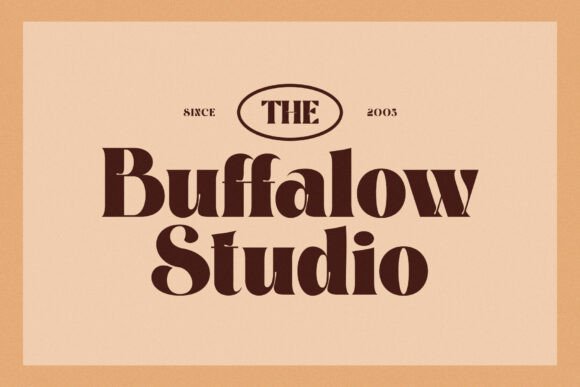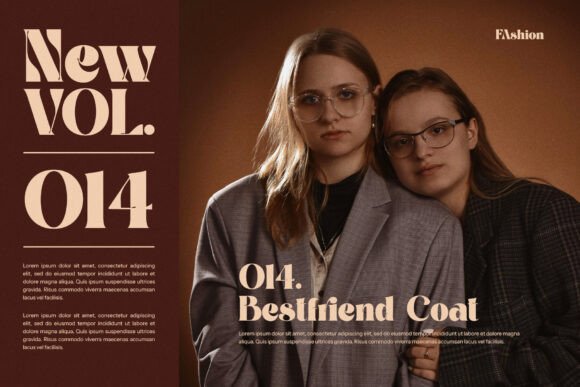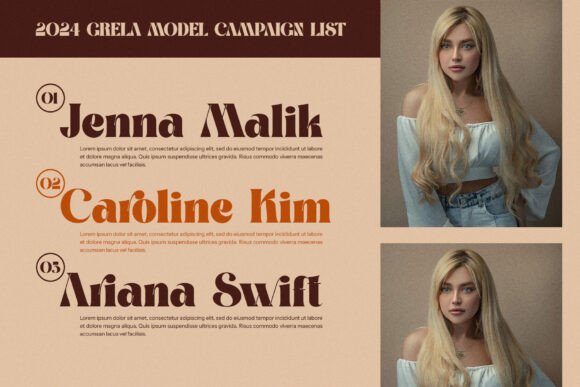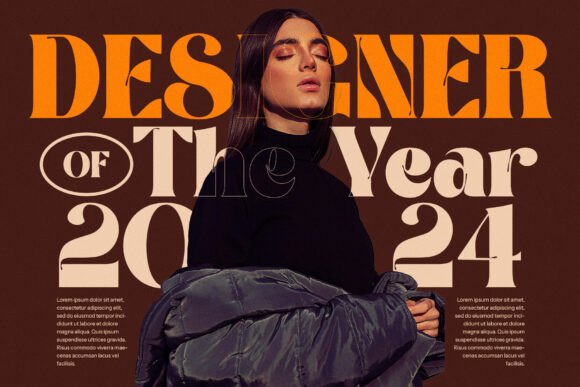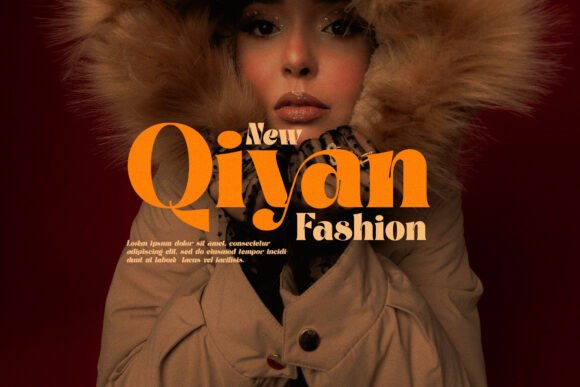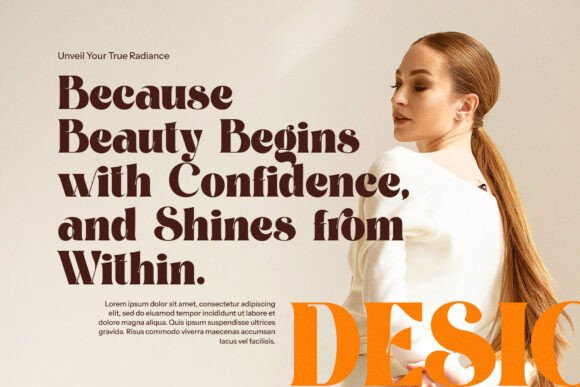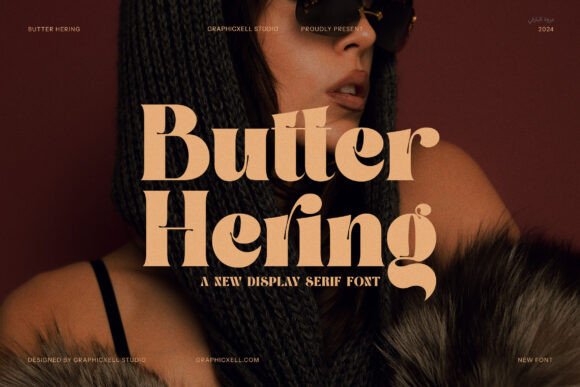
Introducing Butter Hering: A Timeless Vintage-Style Serif Font
Are you a designer or crafter looking for a font that exudes classic elegance and sophistication? Look no further than Butter Hering, a beautiful vintage-style serif font that’s perfect for adding a touch of charm to your retro designs, logos, and headings. In this article, we’ll take a closer look at the features and benefits of Butter Hering, and explore how you can use it to elevate your design projects.
The Characteristics of Butter Hering
Butter Hering is a serif font that boasts a classic and elegant look, reminiscent of traditional printing techniques from the past. Its bold, curvy letters are adorned with small decorative details, giving it an old-fashioned yet stylish feel that’s sure to captivate your audience. The font’s distinctive features include:
- Bold and curvy letters: Butter Hering’s letters are designed with a bold, curvy shape that gives them a sense of elegance and sophistication.
- Small decorative details: The font features small decorative details that add to its vintage charm and character.
- Serif style: As a serif font, Butter Hering features small lines or flourishes at the ends of its letters, which give it a classic and traditional look.
Perfect for Retro Designs and More
Butter Hering is a versatile font that’s perfect for a variety of design projects, including:
- Retro designs: Add a touch of nostalgia to your designs with Butter Hering’s vintage-style charm.
- Logos: Create a lasting impression with a logo that features Butter Hering’s elegant and sophisticated lettering.
- Headings: Use Butter Hering to add a touch of class and sophistication to your headings and titles.
Why Choose Butter Hering?
So why should you choose Butter Hering for your design projects? Here are just a few reasons:
- Unique and distinctive: Butter Hering’s vintage-style lettering sets it apart from more modern fonts, giving your designs a unique and distinctive look.
- Elegant and sophisticated: The font’s classic and elegant design makes it perfect for designs that require a touch of sophistication.
- Versatile: Butter Hering can be used for a wide range of design projects, from retro designs to logos and headings.
Tips for Using Butter Hering
Here are a few tips for getting the most out of Butter Hering:
- Use it sparingly: Because of its bold and decorative nature, it’s best to use Butter Hering sparingly to avoid overwhelming your design.
- Pair it with a simple font: Pair Butter Hering with a simple font to create a striking contrast and add visual interest to your design.
- Experiment with colors: Try out different colors and textures to add depth and dimension to your design.
In conclusion, Butter Hering is a beautiful vintage-style serif font that’s perfect for designers and crafters looking to add a touch of classic elegance and sophistication to their designs. With its bold, curvy letters and small decorative details, Butter Hering is sure to captivate your audience and set your designs apart from the rest. So why not give it a try and see the difference it can make in your design projects?